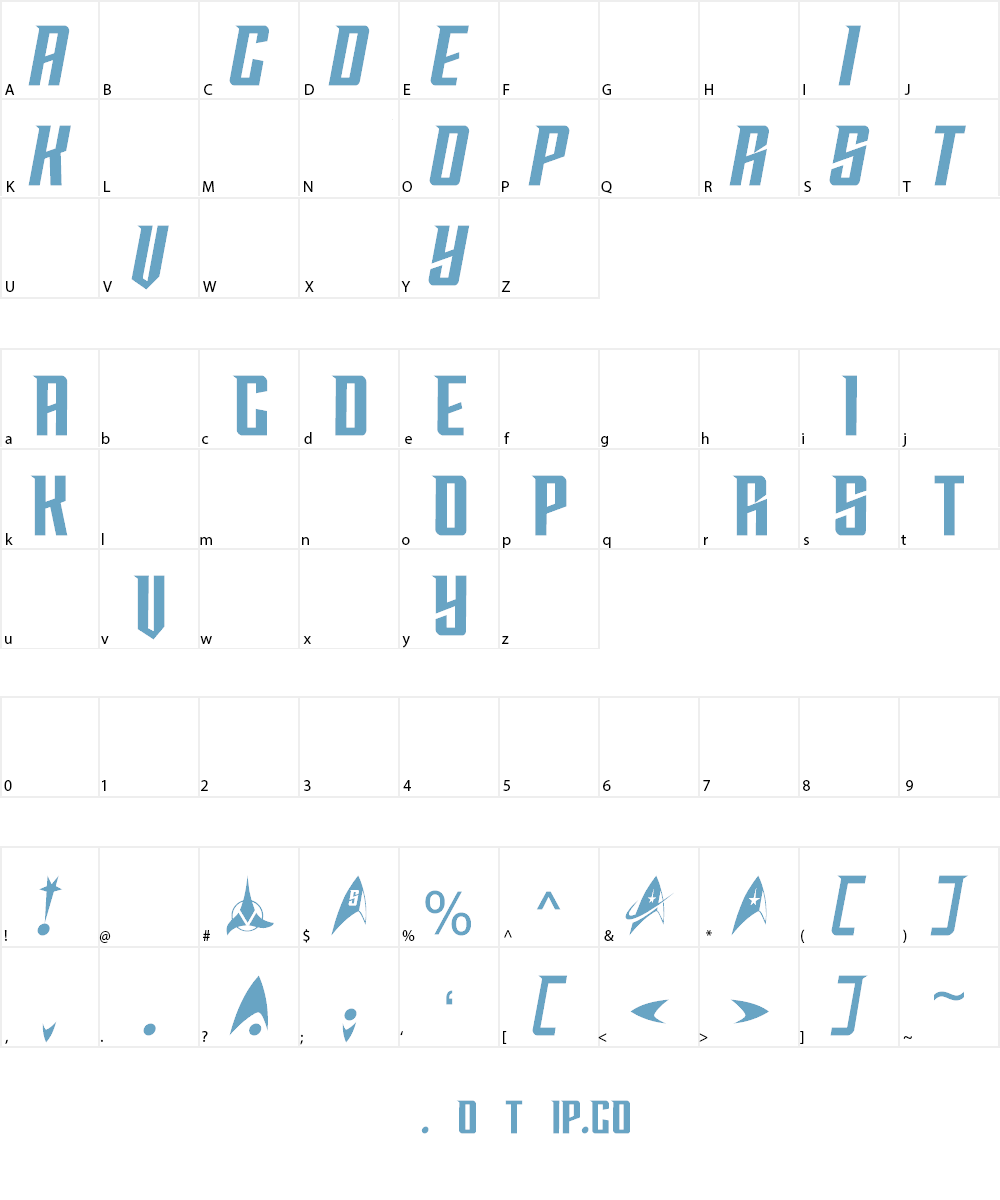
Fan-Font based the latest Star Trek franchise title font about the USS Discovery, NCC-1031 the first Star Trek ship to be capable of traveling via spore drive, which is faster than both impulse engines and warp drive. The idea of the spore drive may be physically possible in network of mycelium spores spread our across the Universe if indeed extra spatial dimensions exist with mushroom spores and alien tardigrades, until then arachnids still rule my star type universe.
This is a sample of 13 lowercase and capitals if you want the fully kerned OTF embeddable commercial version with numbers and accented glyph's please visit my Etsy Store @